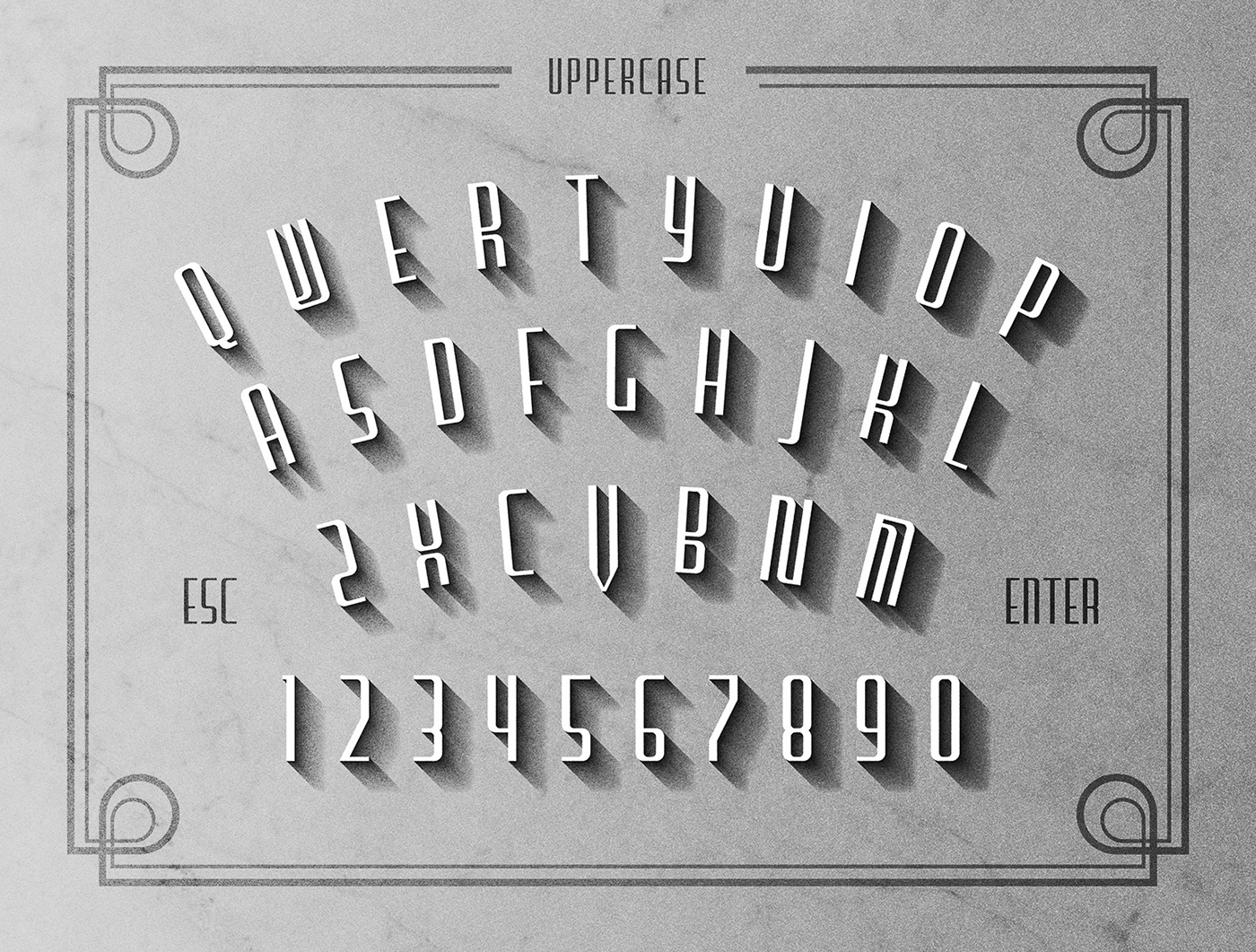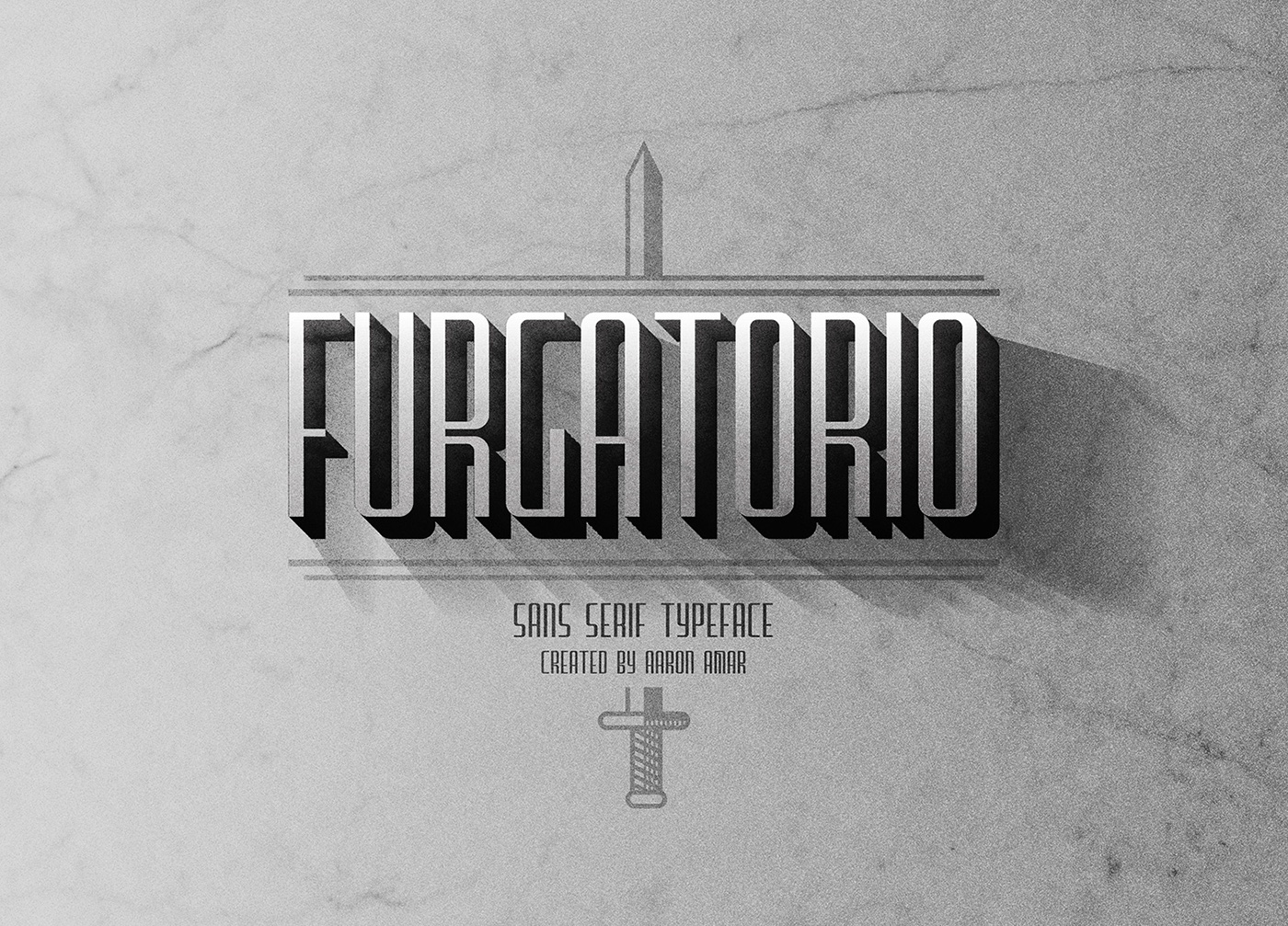
Furgatorio Sans Typeface
Introducing Furgatorio Sans Family. Furgatorio Sans Typeface was designed and shared by Aaron Amar – A clean and minimalist and awesome character! With two different weights, it’s perfect for magazine layouts, invitations, headers, or even large-scale artwork. It has a modern streak which is the result of a harmonization of width and height especially in the lowercase letters to support legibility.